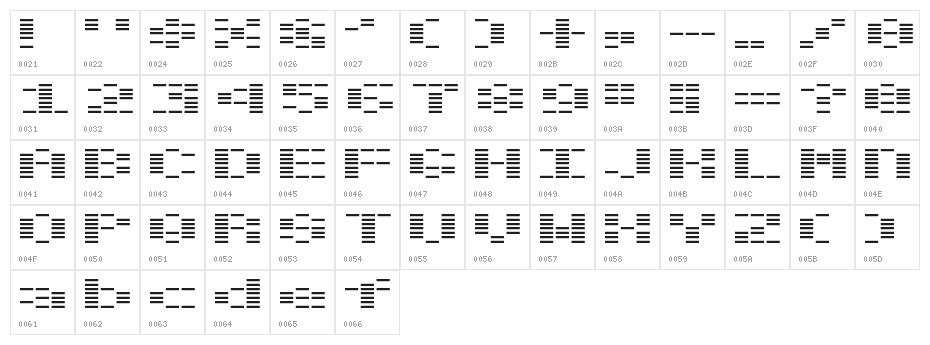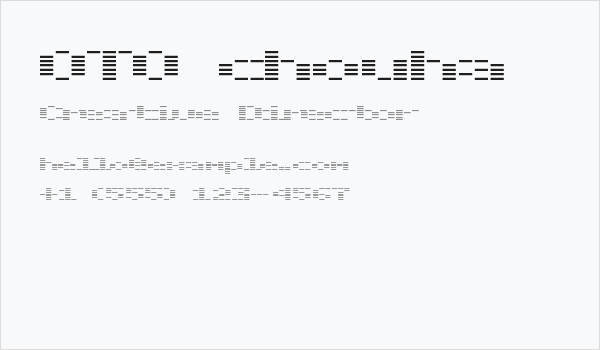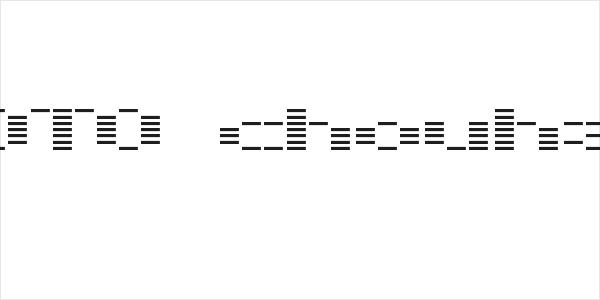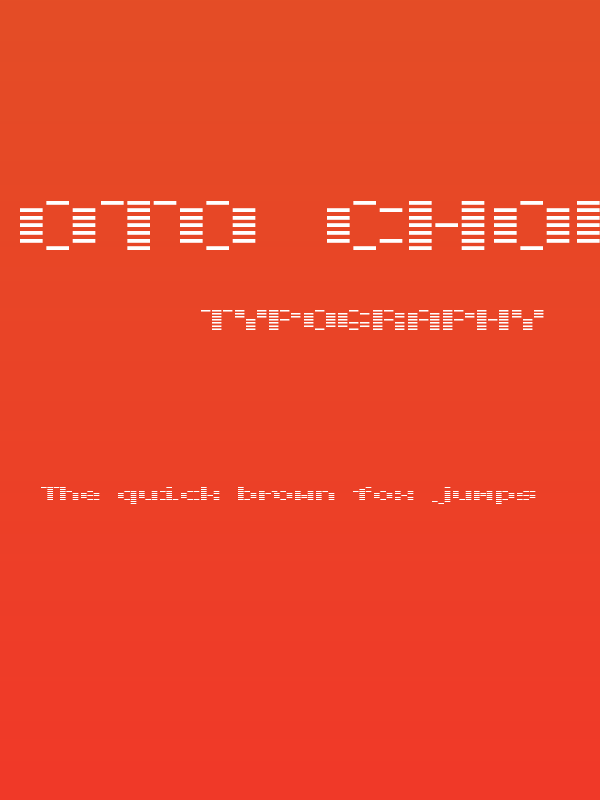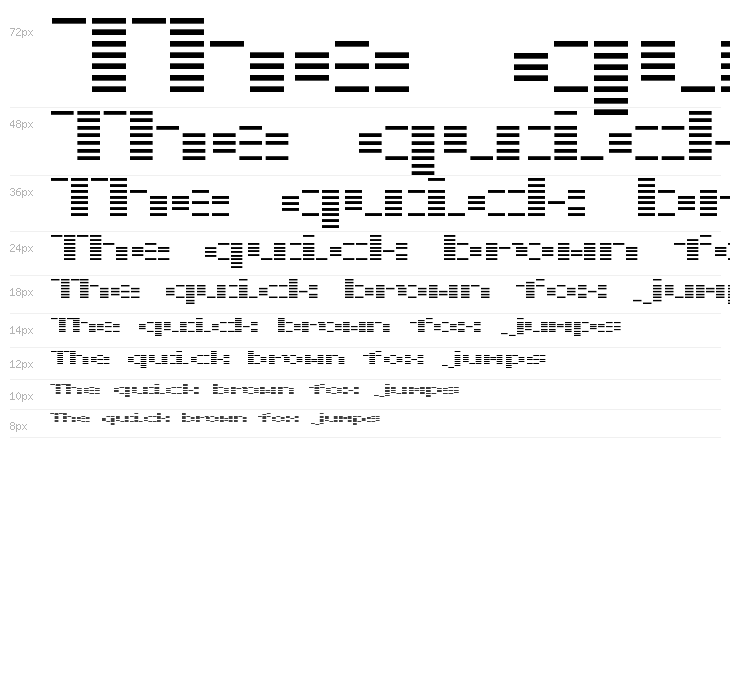
OTO chouha Font
OTO chouha Description
This font features a unique, digital-inspired design that mimics the appearance of text on old dot matrix printers. Each character is composed of horizontal lines, creating a pixelated effect that is both nostalgic and modern. The uppercase and lowercase letters maintain a consistent style, with a geometric and structured appearance. Numbers and special characters follow the same pattern, ensuring uniformity across all glyphs. The font's distinct style makes it stand out, offering a retro yet futuristic vibe.
| Overall Style | Retro, Futuristic |
| Proposed Projects | Ideal for retro-themed designs, digital art projects, video game graphics, and tech-related branding. |